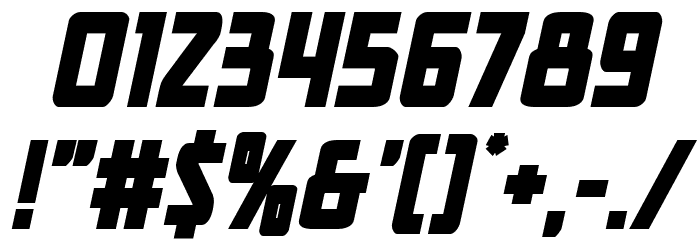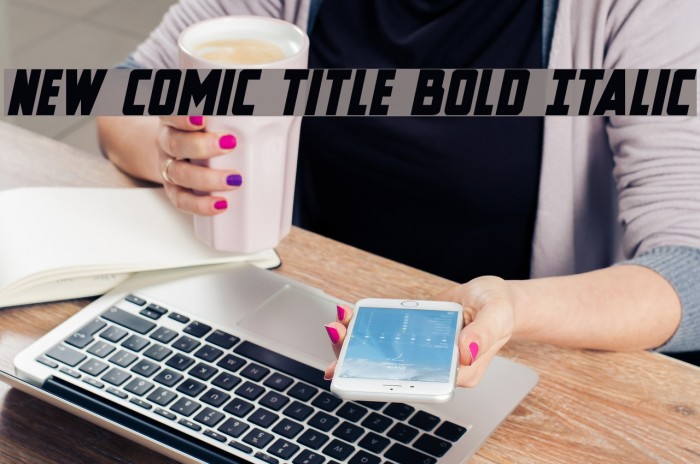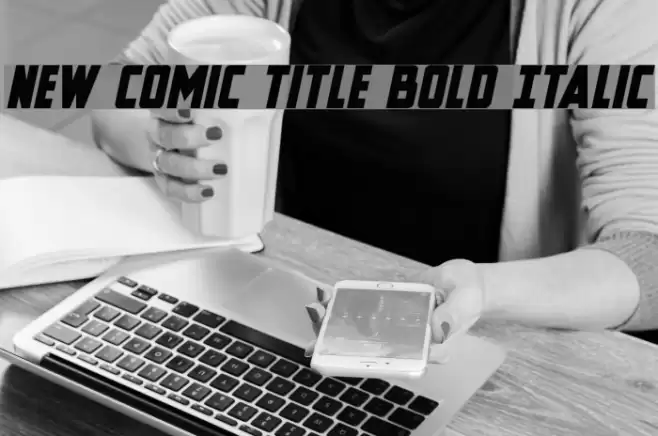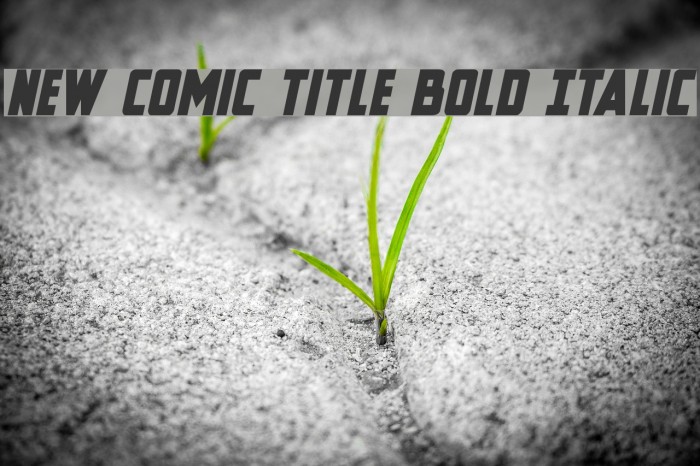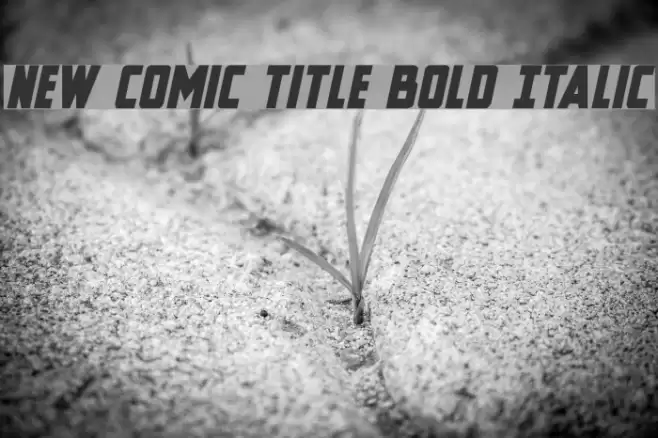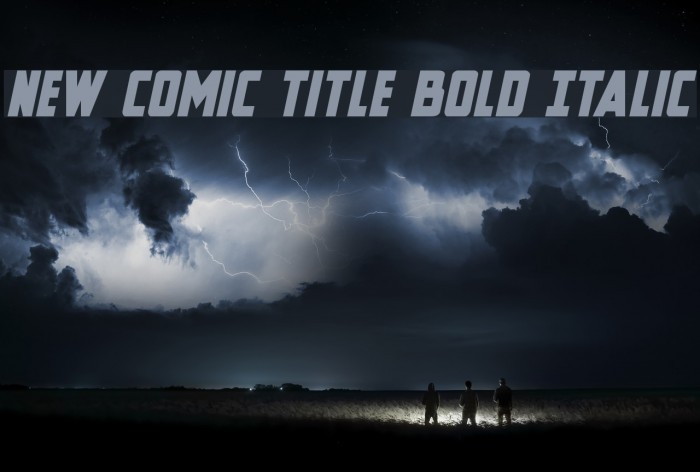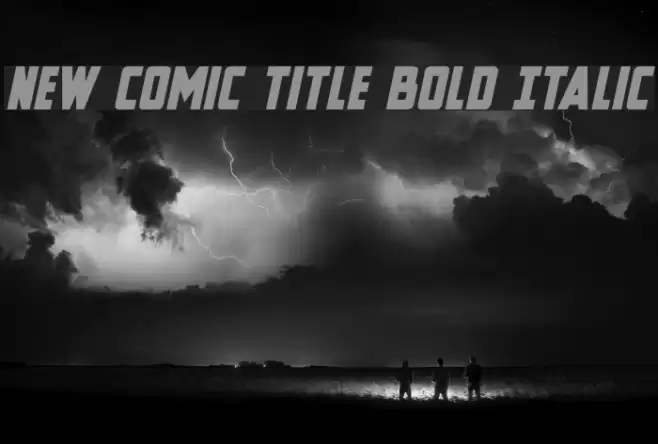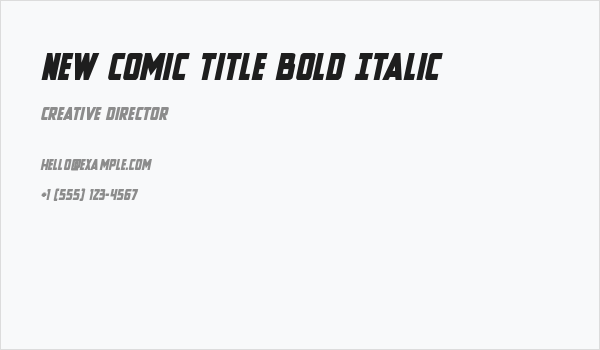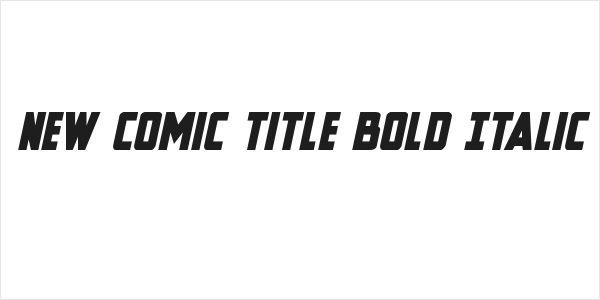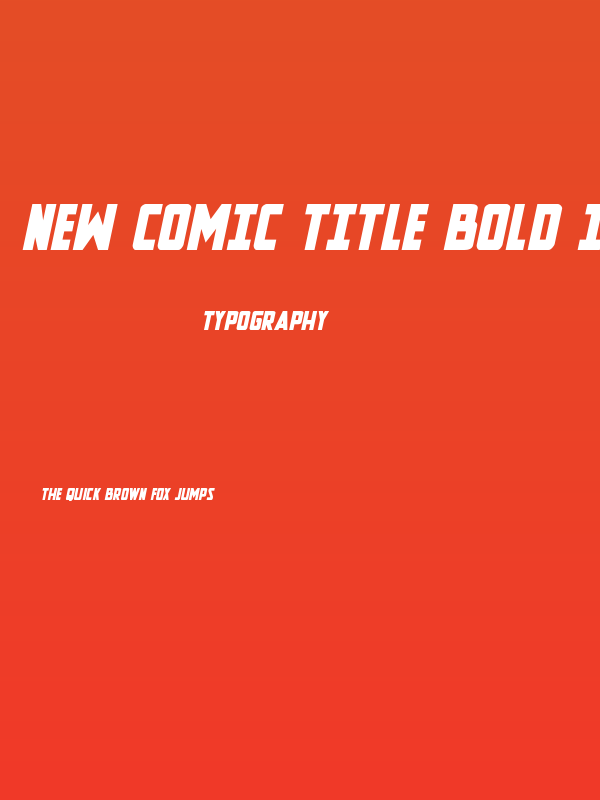
New Comic Title Bold Italic Font
New Comic Title Bold Italic Description
This bold and italic typeface features a dynamic and energetic style, perfect for grabbing attention. The letters are slightly slanted, adding a sense of motion and urgency. The bold weight ensures strong visibility, making it ideal for headlines and titles. The characters are well-defined with consistent stroke thickness, providing a clean and modern appearance. The spacing between characters is tight, enhancing the compact and impactful look of the text. This font is suitable for projects that require a bold statement, such as comic book titles, posters, and advertisements.
| Proposed Projects | Comic book titles, posters, advertisements, branding materials. |